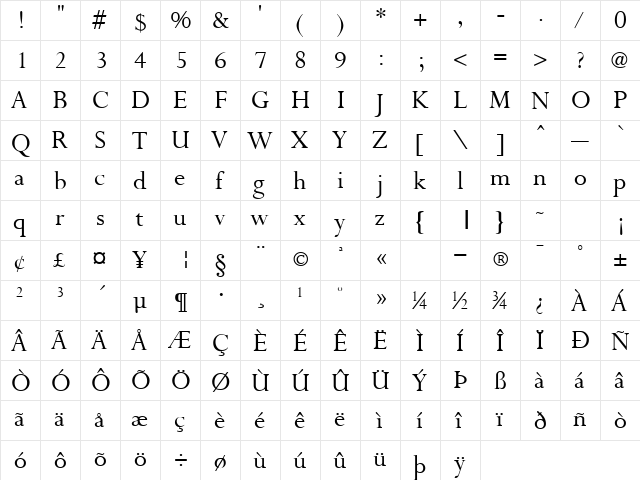
GE Pilfering Regular
Design Context for GE Pilfering Typeface
GE Pilfering takes a measured approach to typography — its balanced proportions and neutral character make it a reliable workhorse for both digital and print work.
Pro Tip: Use GE Pilfering in both headline and body roles to test its range before committing to a single application.